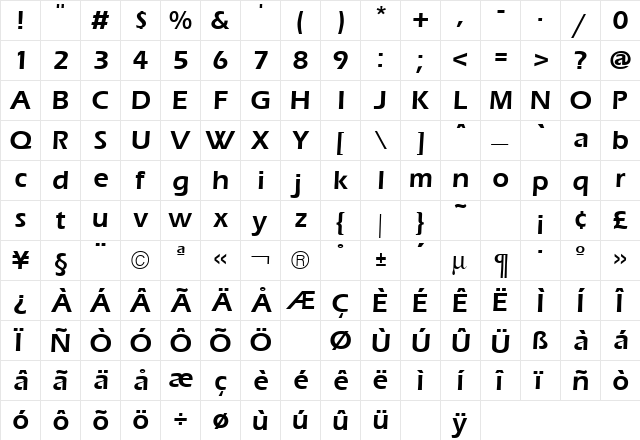
Eras Demi Regular Font Preview
Eras Demi Regular
Design Context for Eras Demi Typeface
Eras Demi offers clean, dependable letterforms without strong stylistic allegiance, making it a practical choice for designers who need flexibility.